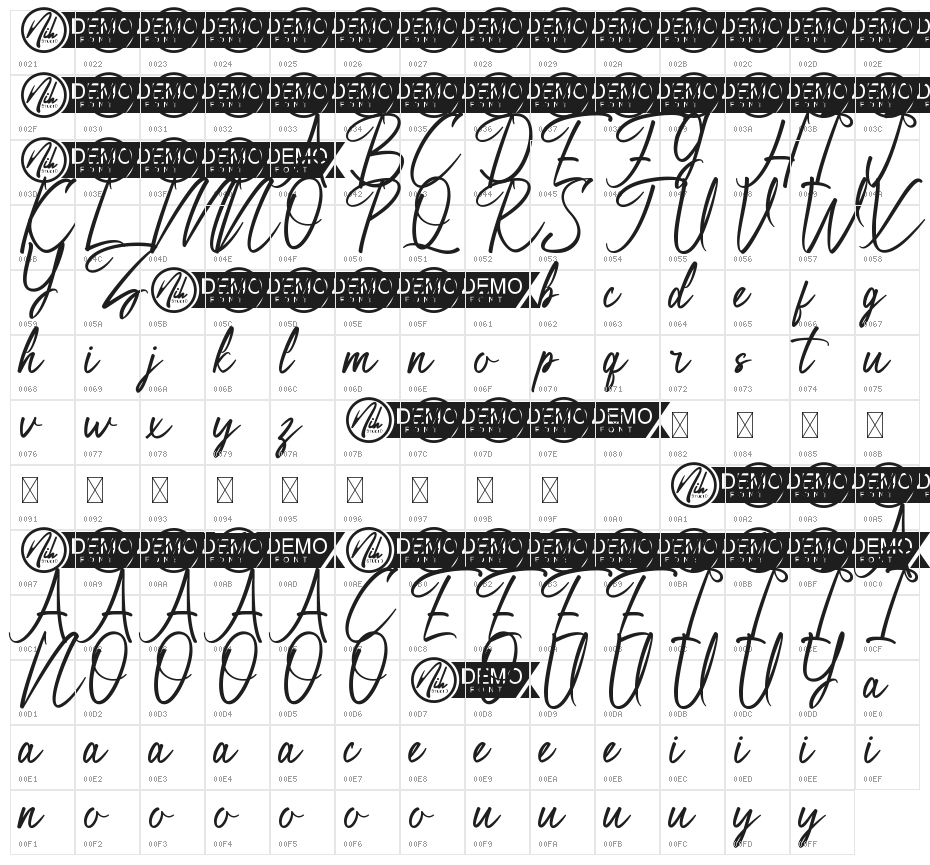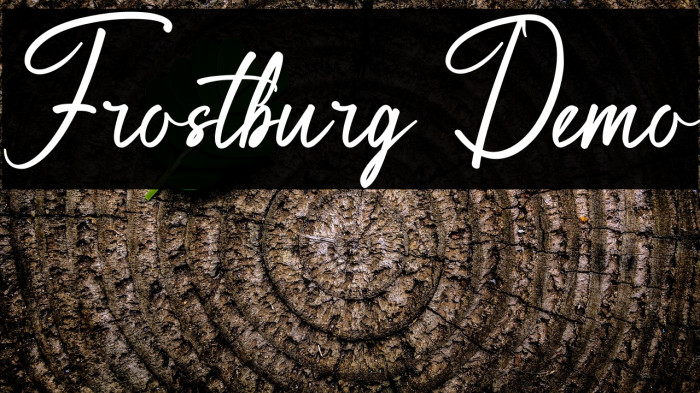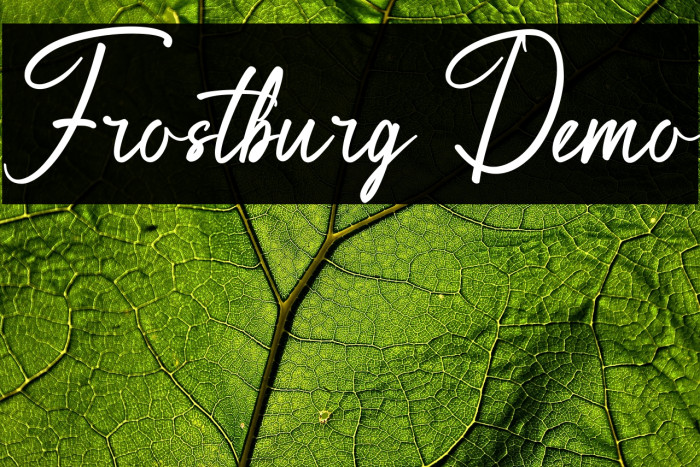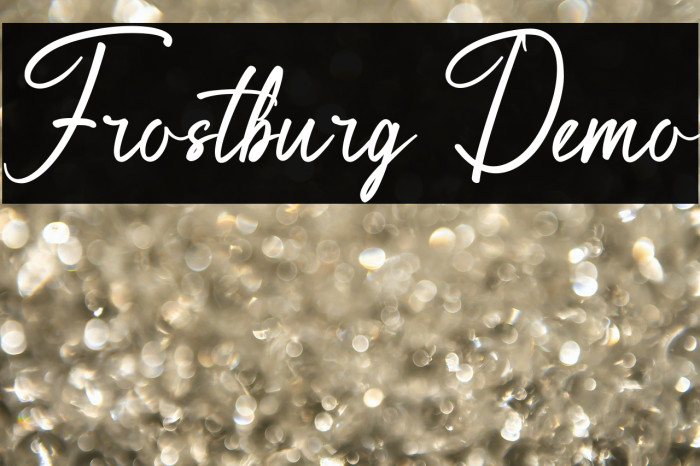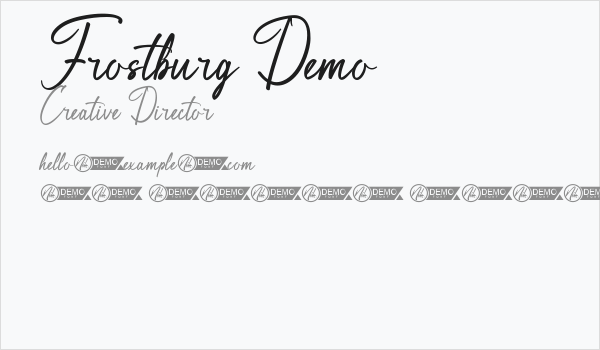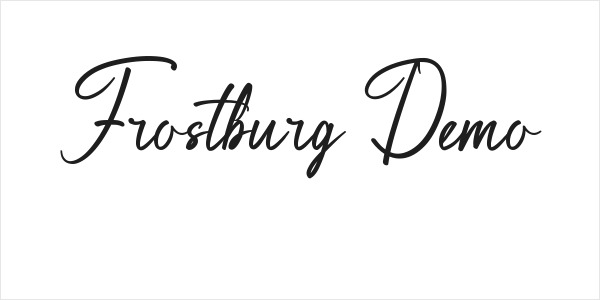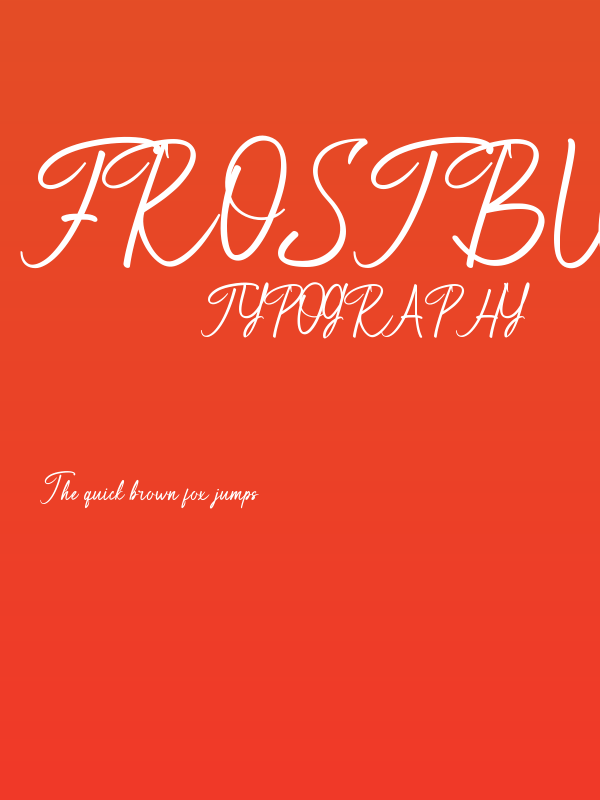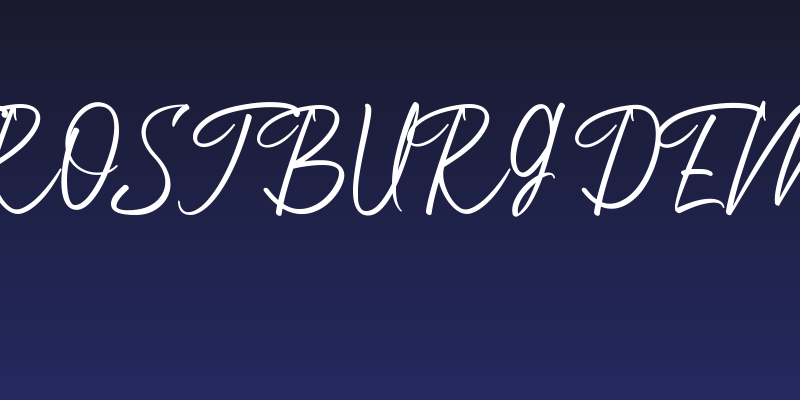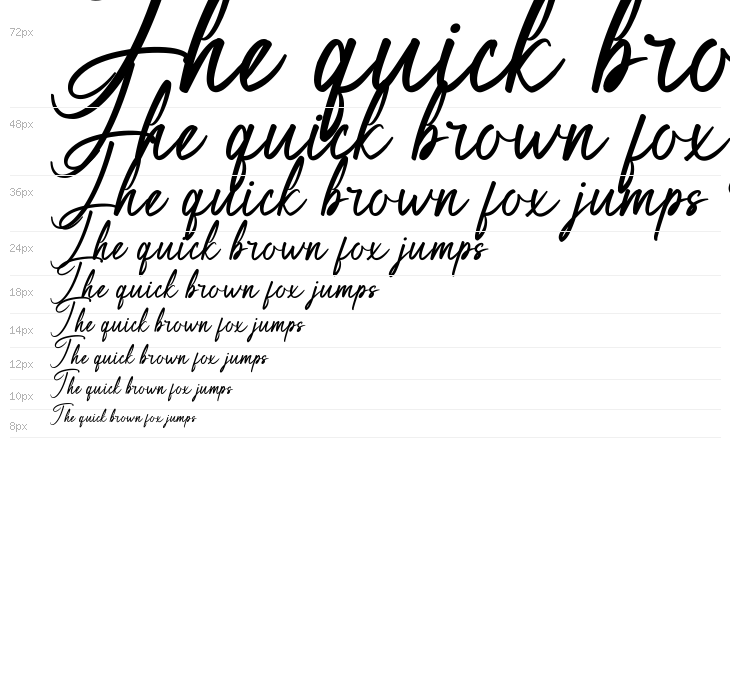
Frostburg Demo Font
Frostburg Demo Description
This font features a flowing, cursive style that exudes elegance and sophistication. The uppercase letters are tall and slender, with graceful loops and curves that give a sense of fluidity. The lowercase letters maintain this fluidity, with a slightly bolder appearance that enhances readability while retaining a stylish flair. The numerals and special characters are consistent with the overall script style, providing a cohesive look. This font is perfect for projects that require a touch of class and refinement, such as wedding invitations, elegant branding, or high-end product packaging.
| Overall Style | Elegant, Sophisticated |
| Use Case | Headlines, Invitations, Branding |
| Proposed Projects | Ideal for wedding invitations, elegant branding, high-end product packaging, and sophisticated event materials. |